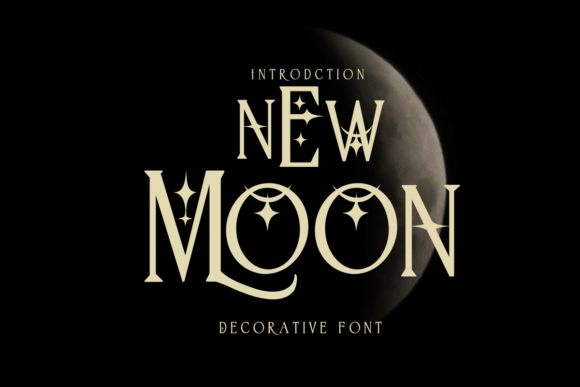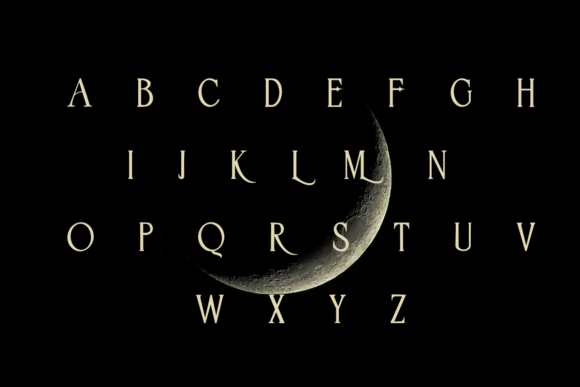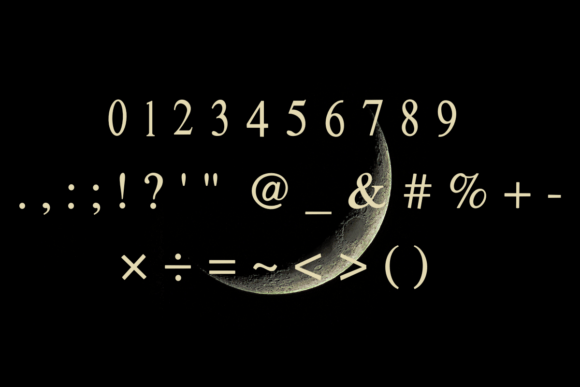
New Moon Font: Celestial Decorative Font for Elegant Designs
About the New Moon Font
The New Moon Font is here to transform your projects with its distinctive character and style. New moon is a Decorative font You can use it for taking notes, writing a diary, or making greeting cards. However, you can still use it for other designs, such as banners, content, mugs, cards, shirts, stationery, social media posts, and more!
New Moon’s decorative style shines in headlines, short-form text on packaging or posters, and social media graphics. Its playful energy works well for branding projects targeting a younger demographic or those with a whimsical feel. Avoid using it for body text or lengthy paragraphs; its ornate details would hinder readability.
Pairing New Moon with a clean sans-serif like Open Sans for body copy creates a balanced contrast. For a more sophisticated look, consider a classic serif like Garamond or a modern geometric sans-serif such as Futura. These pairings allow New Moon’s decorative qualities to stand out without overwhelming the design.
The overall personality of New Moon is playful yet elegant, making it ideal for brands focused on creativity, artistry, or a youthful spirit. It’s less suitable for applications demanding high readability or a strictly professional tone.
New Moon Font Usage Examples
New Moon Font Example